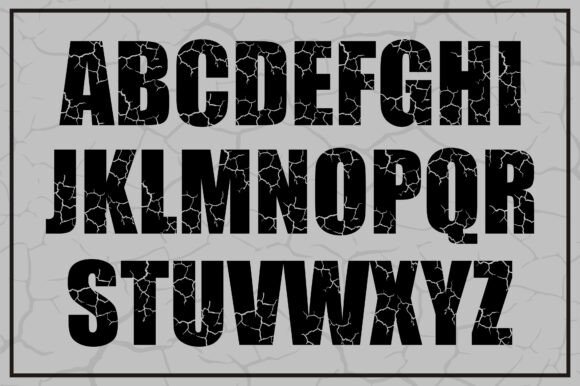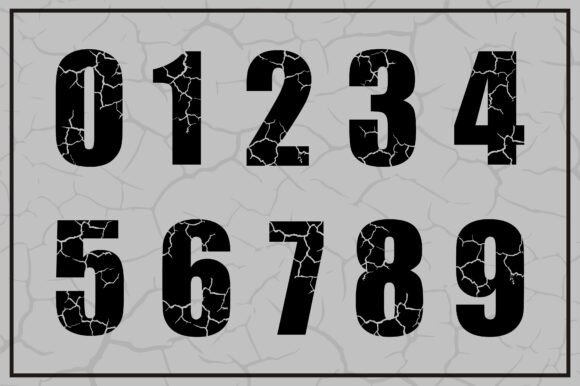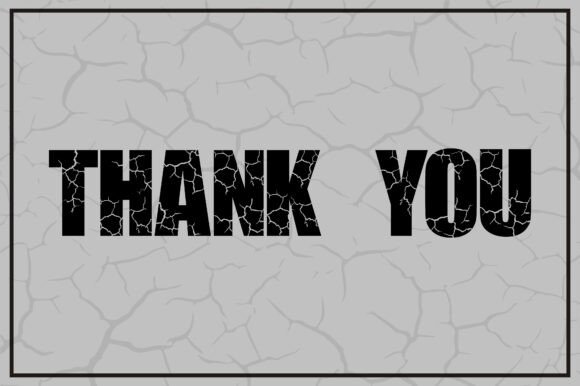
Crack Font: The Ultimate Decorative Display Font for Your Creative Projects
Are you a designer or crafter looking for a unique and dynamic font to elevate your creative projects? Look no further than Crack Font! This fun and decorative display font is perfect for adding a touch of personality to your designs, crafts, and DIY projects. In this article, we’ll explore the features and benefits of Crack Font, and show you how to use it to take your creative endeavors to the next level.
What is Crack Font?
Crack Font is a decorative display font designed to add a touch of whimsy and playfulness to your designs. With its bold and dynamic appearance, it’s perfect for creating eye-catching titles, headings, and captions. The font’s unique crack-like texture gives it a distinctive look that’s sure to grab attention and make your designs stand out.
Features of Crack Font
• Unique and Dynamic Design: Crack Font features a bold and dynamic design that’s perfect for creating eye-catching titles and headings.
• Decorative Display Font: This font is specifically designed for display purposes, making it perfect for use in titles, captions, and other decorative elements.
• Fun and Playful: Crack Font has a fun and playful personality that’s perfect for adding a touch of whimsy to your designs.
• High-Quality Design: The font is designed with high-quality craftsmanship, ensuring that it looks great in any design or project.
Benefits of Using Crack Font
So why should you use Crack Font in your creative projects? Here are just a few benefits of using this amazing font:
• Adds Personality to Your Designs: Crack Font adds a unique and playful personality to your designs, making them more engaging and eye-catching.
• Perfect for DIY Projects: This font is perfect for use in DIY projects, such as crafting, scrapbooking, and other handmade endeavors.
• Versatile: This font can be used in a wide range of creative projects, from digital designs to print materials.
How to Use Crack Font in Your Projects
Using Crack Font in your creative projects is easy! Here are a few tips to get you started:
• Pair it with Other Fonts: Crack Font looks great when paired with other fonts, such as sans-serif fonts or script fonts.
• Use it for Titles and Headings: This font is perfect for use in titles and headings, where you want to grab attention and add visual interest.
• Add it to Your Digital Designs: Crack Font can be used in digital designs, such as social media graphics, blog posts, and website headers.
• Use it in Print Materials: This font is also perfect for use in print materials, such as brochures, flyers, and posters.
In conclusion, Crack Font is a fun and dynamic decorative display font that’s perfect for adding a touch of personality to your creative projects. With its unique and bold design, it’s sure to grab attention and make your designs stand out. Whether you’re a designer or crafter, Crack Font is a great addition to your font collection. So why wait? Download Crack Font today and start adding a touch of whimsy to your creative projects!